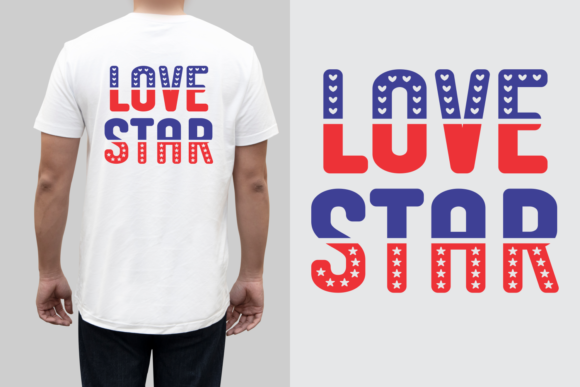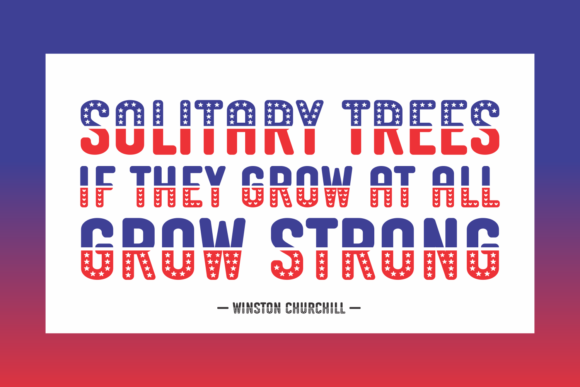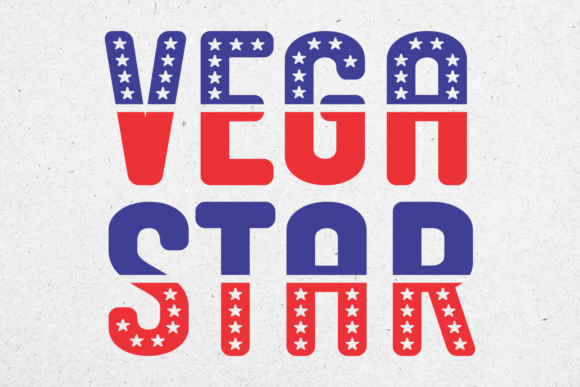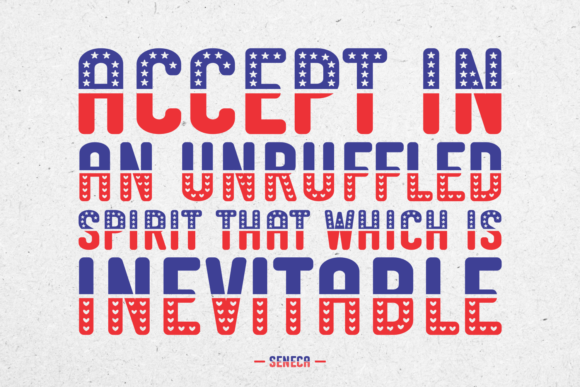
Vega Star Font$5+$5+https://schema.org/InStockusdMZKNMZKNVega Star is a cool and festive display font. Whether you’re using it for crafting, digital designing, presentations, or greeting card making, it’s perfect! Name a fair price:$Add to cartSize112 KBAdd to wishlist New wishlistShareShare on XShare on Facebook Copy linkCopy product URL